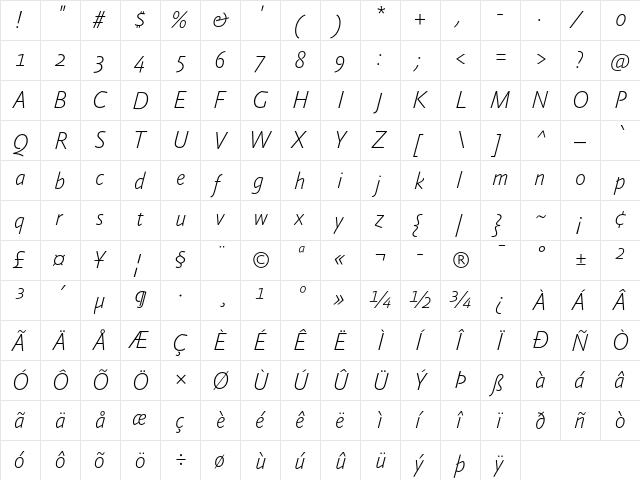
AbsaraSans-ThinItalic Regular
Design Context for AbsaraSans-ThinItalic Typeface
AbsaraSans-ThinItalic is a composed and adaptable typeface that performs quietly and consistently across a wide range of design contexts. Its italic angle brings a sense of urgency and motion to the letterforms. Its slender proportions lend an understated elegance to any composition.
Pro Tip: Use AbsaraSans-ThinItalic for emphasis, pull quotes, and subheadings where its slanted energy can add rhythm to the layout.